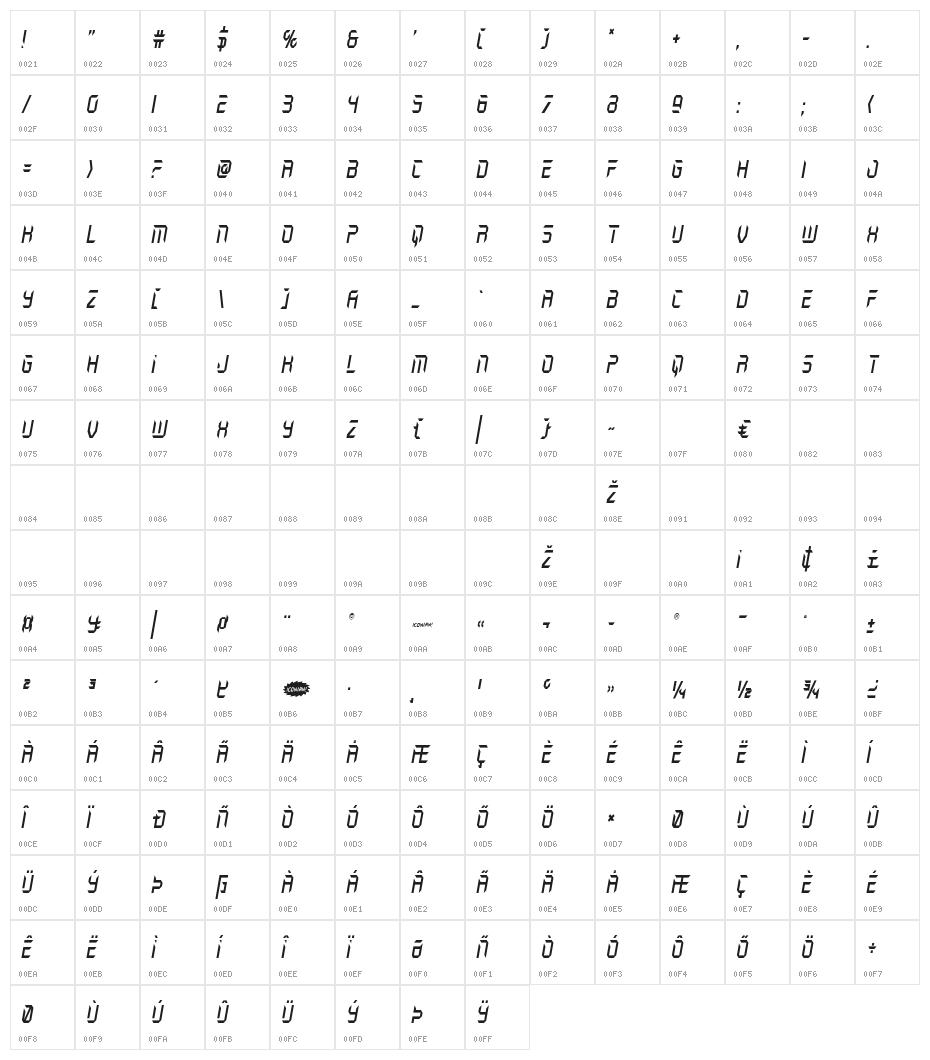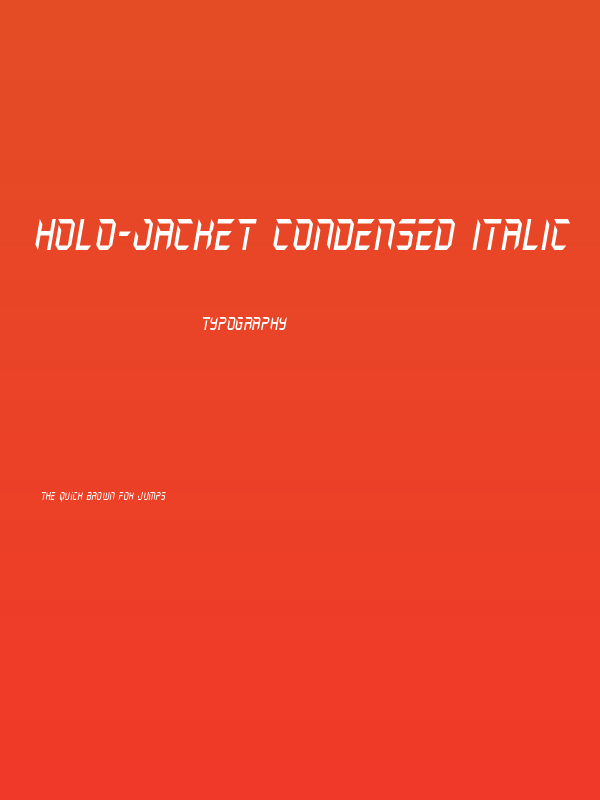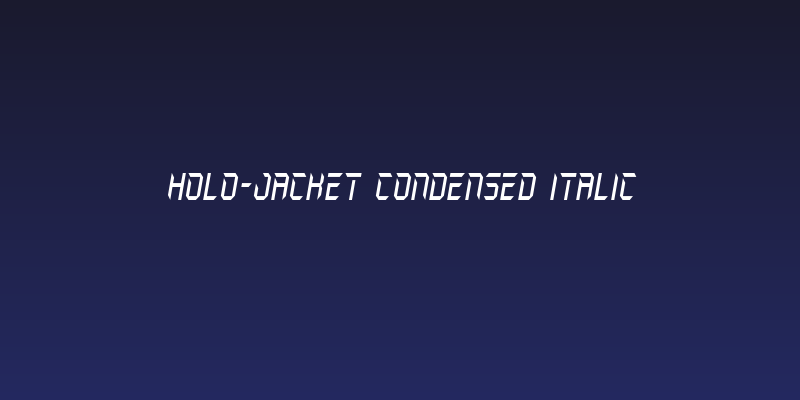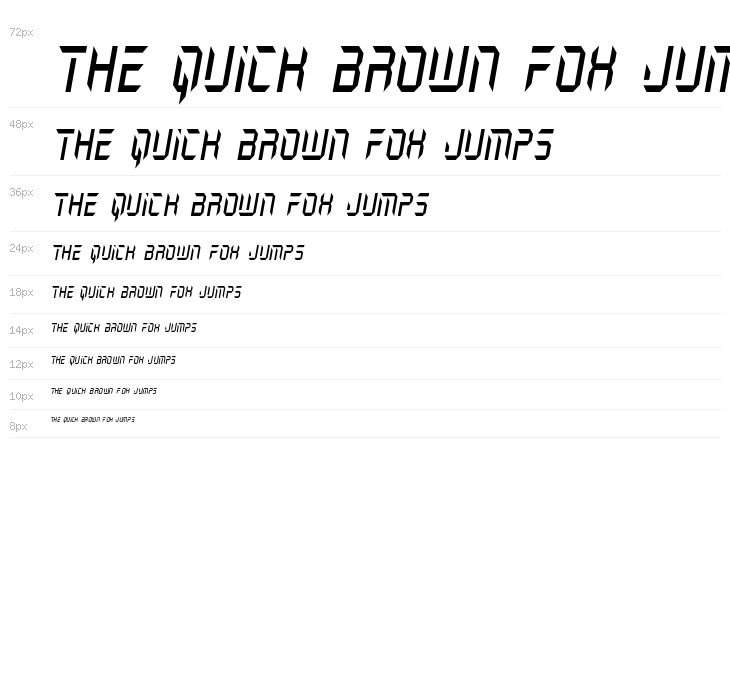
Holo-Jacket Condensed Italic Font
Holo-Jacket Condensed Italic Description
This font features a futuristic and angular design, characterized by its sharp edges and geometric shapes. The condensed form gives it a sleek and modern appearance, while the italic slant adds a dynamic and forward-moving feel. The uppercase and lowercase letters maintain a consistent style, with a uniform stroke width that enhances readability. The numerals and special characters are designed to match the overall aesthetic, making it suitable for a variety of digital and print applications. Its unique style makes it stand out, perfect for projects that require a bold and innovative look.
| Use Case | Headlines, Logos, Digital interfaces |
| Proposed Projects | Ideal for tech-related branding, sci-fi themed designs, video game interfaces, and modern advertising campaigns. |